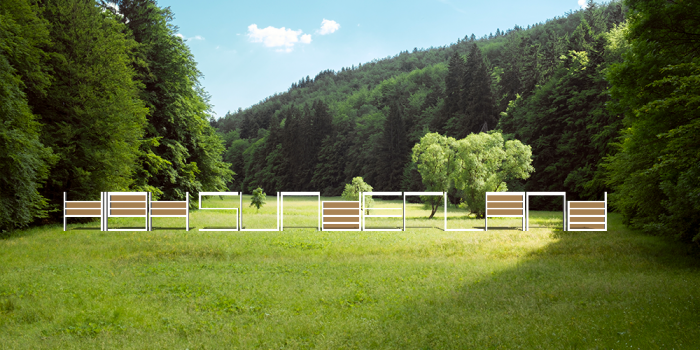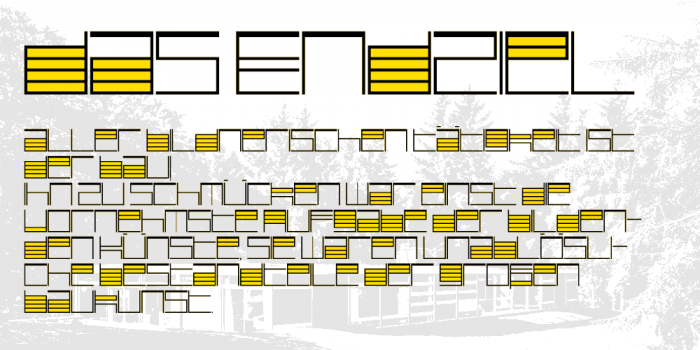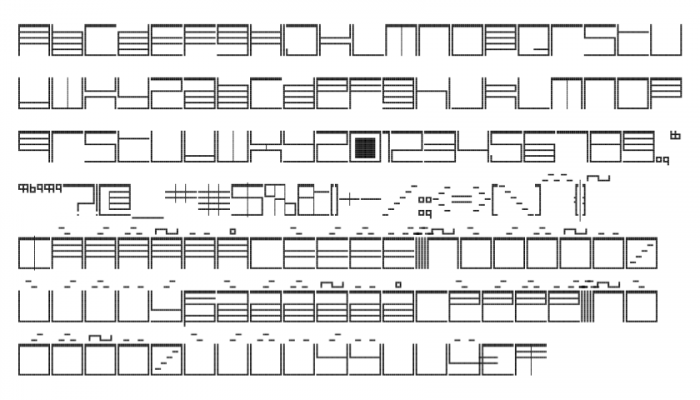
Planning only to track down some bugs in the FontStructor, I was suddenly struck by similarities between the random shapes I was placing on the canvas and images I had stumbled upon recently on the web – I think it was in this article in the Guardian.
The images were of Peter Womersley’s modernist design for “High Sunderland”, fashion designer Bernat Klein’s erstwhile home, near Selkirk in Scotland. I wasn’t at first drawn to the modernism, but to the promised description of the experience of living in a house which was visually so open to the outside world – although ultimately the article wasn’t especially enlightening on that point. Later I found more extensive sources of images of the building on the web.
Working on this was the first time in quite a few years that I have been possessed by my own, earnest FontStructing rush. I was very pleased to find that the FontStructor tool still works as well and simply as it ever did – allowing for a uniquely swift and unimpeded creative progress through a set of modular glyphs.
The basic grid for each letter, based on the characteristic modules of the building, is topped by a slightly heavier bar and so slightly asymmetrical in the vertical, like the structure of High Sunderland itself, but it is essentially square and consists of six parallel horizontal bars.
In the FontStruction, the emphasis is on these crossbars – with every effort made to avoid partial horizontals and additional vertical lines, especially for the basic latin alphabet. The font is essentially unicase, with some variants in the lower case.
At one point I noticed that there are some window panels in High Sutherland which do have a single, thinner vertical divider (for sliding open presumably) so I used this for the middle legs of the M and W. After completing the initial FontStruction I also noticed in photographs of the building that there is at least one window with multiple vertical subdividers, so maybe that can form the basis for a new grid and a new FontStruction (High Sutherland B).
Things started to get fun for me when I got into the punctuation and accented letters. I saw no alternative to adding additional verticals for the hash, the percentage sign and some other glyphs.
I really like the percentage sign, although I’m not sure how legible it is – but I guess ultimately that it is an issue with the whole font.
When it came to glyphs with unavoidable diagonals – such as the slash glyphs – I went for a stepped approach, which I think is basically a good one, maintaining the emphasis on horizontal lines, and suggestive of musical notation – but the steps are a bit sloppy. I probably need to revisit them.
I’m not sure about applications for this FontStruction. Maybe it would be useful to someone intending to erect their own mid-modernist dwelling in the hills, or to someone planning to put up some new shelves!
Attractive design and faithful to the building's neat architecture. The accents look quite big... This is how I would do them and the punctuation:
The architect’s journal is actually the best online source of images, as far as I can see, but there is a paywall so you only get to open the page it once.